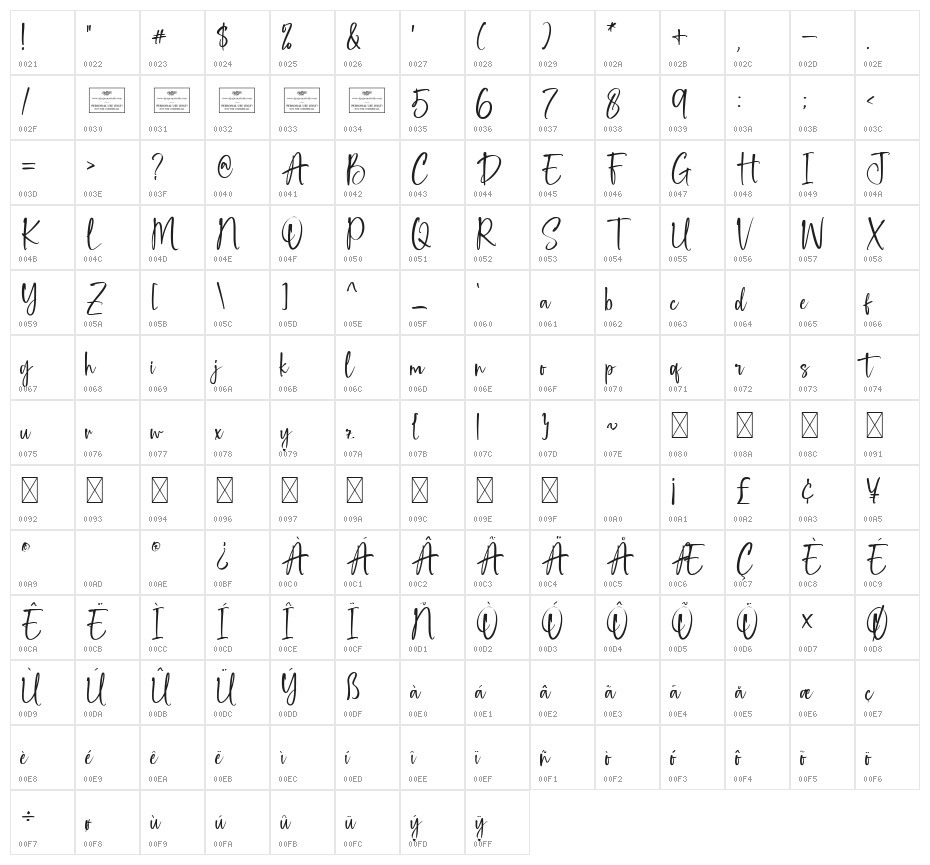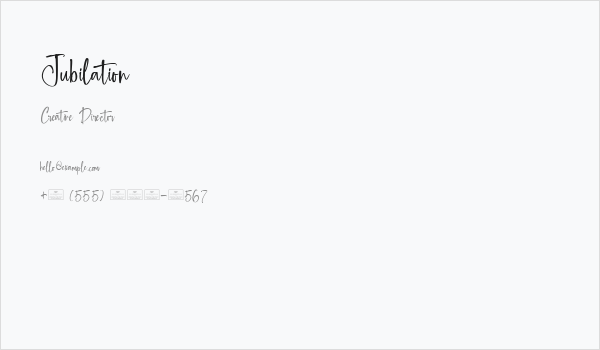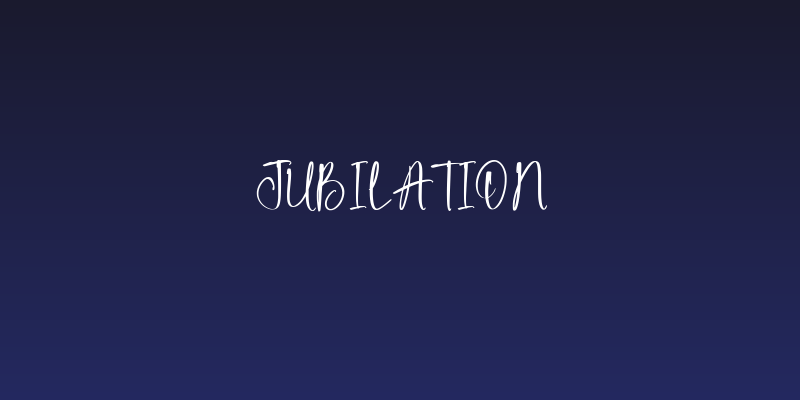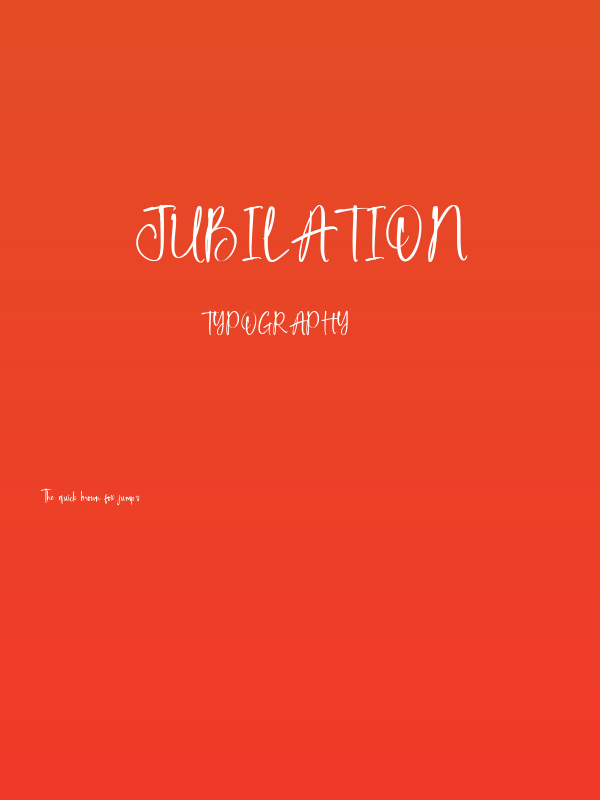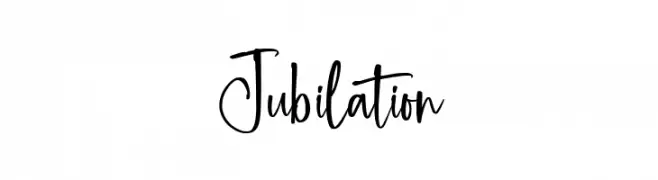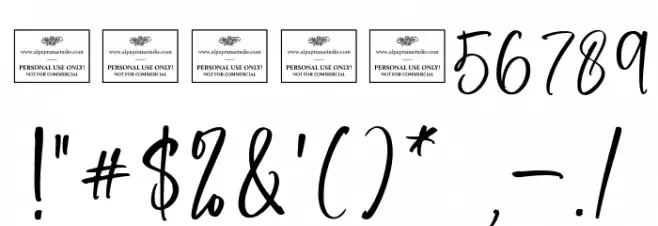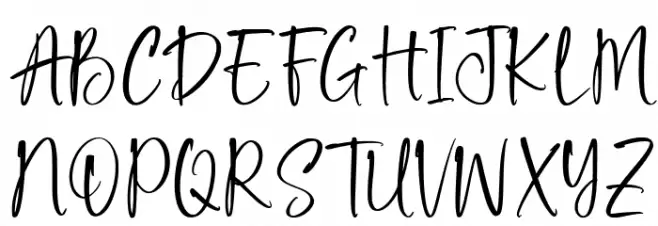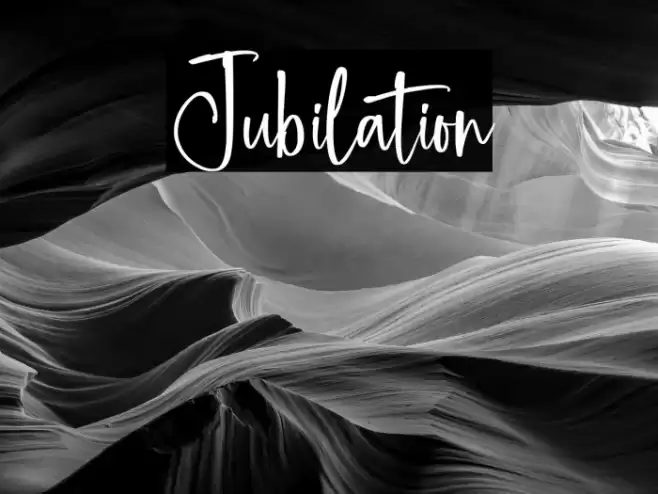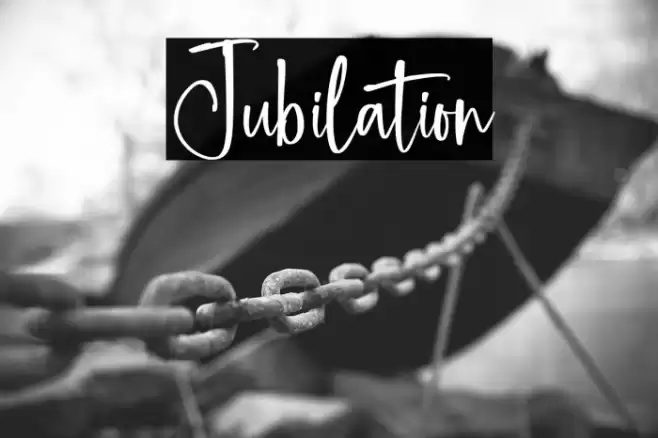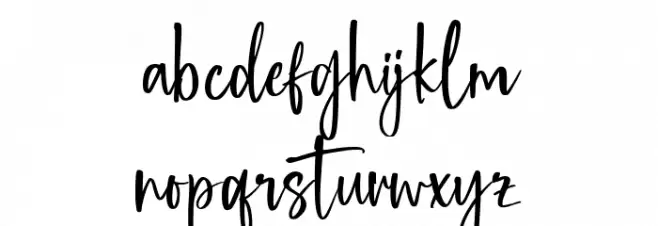
Jubilation Font
Jubilation Description
A handwritten, casual script font with a playful and informal style, featuring varying stroke widths and a slightly irregular baseline.
| Overall Style | Casual, Playful, Handwritten |
| Use Case | Invitations, Greeting Cards, Personal Branding, Logos, Creative Projects |